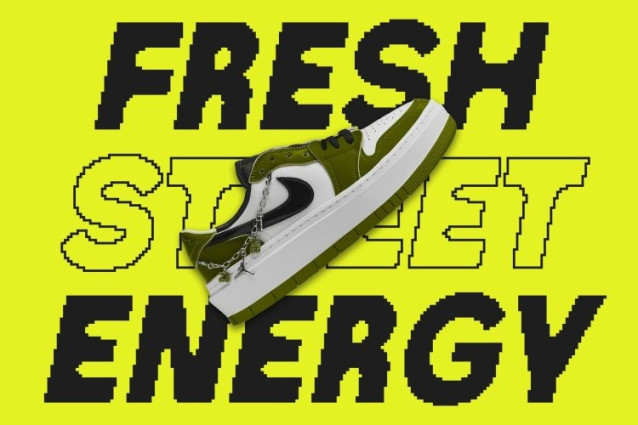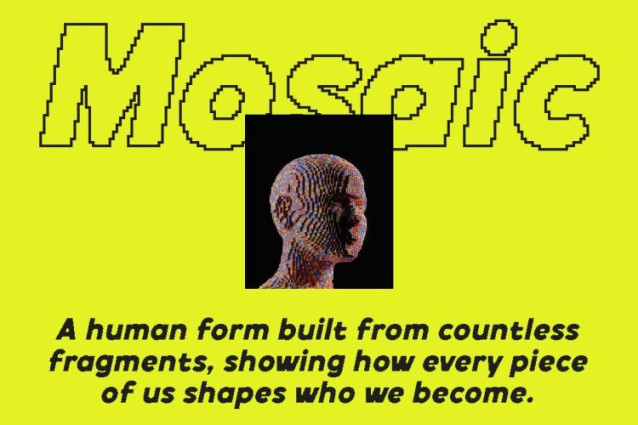
Derian Pixel Font This is a modern sans serif font that blends contemporary design with a subtle pixel character. Its clean structure and digital detailing create a fresh, modern appearance that feels precise, confident, and visually engaging ideal for today’s design landscape.
Modern Clarity, Digital Expression
Featuring sharp lines and sleek proportions, this font offers a refined take on classic sans serif typography. The pixel influence introduces a modern digital nuance, adding character while maintaining a professional and sophisticated look suitable for corporate and creative projects alike.
Designed for Versatile Applications
From branding and logos to websites, posters, and digital interfaces, this font adapts effortlessly across various design needs. Its contemporary style ensures strong readability, while the pixel detail helps your designs stand out in modern and tech-oriented contexts.
Simple to Use, Strong in Impact
Despite its distinctive digital edge, this font remains highly versatile and easy to work with at both large and small sizes. With its balance of modern form and pixel-inspired precision, this font delivers clarity, sophistication, and a confident modern presence in any design.